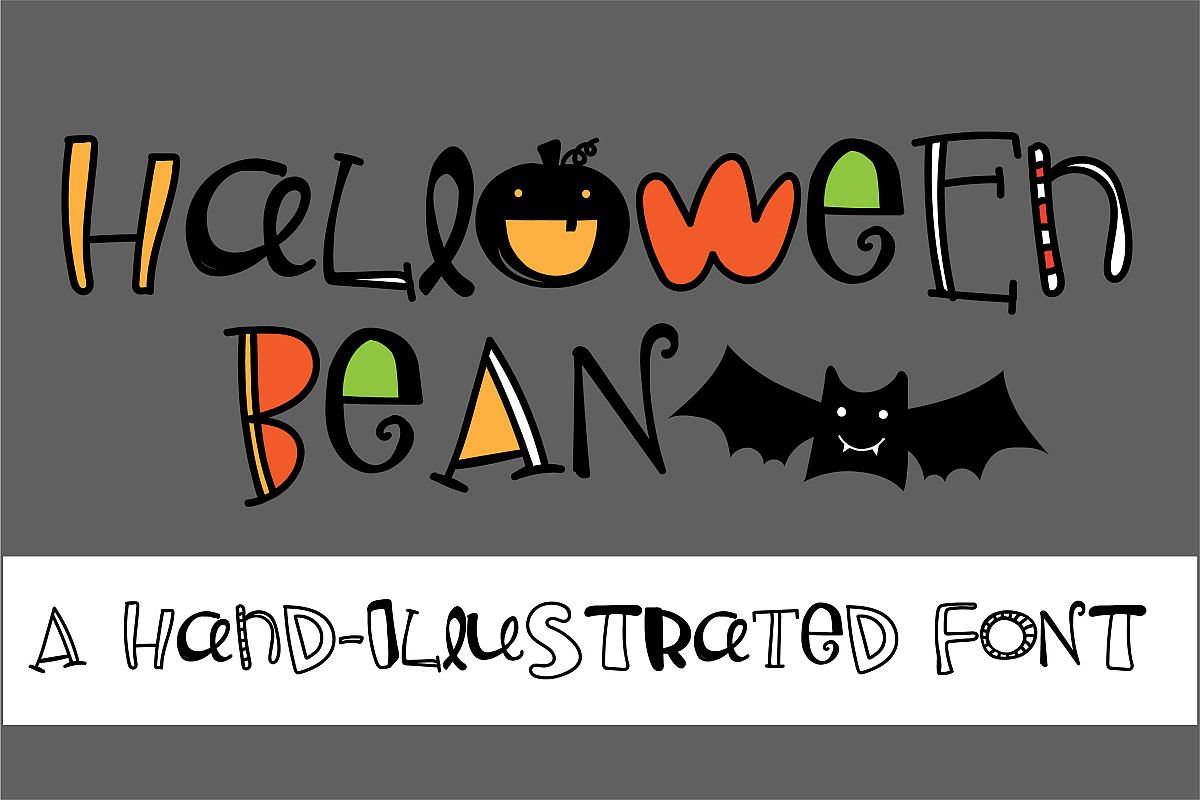
ZP Halloween Bean
This hand-illustrated Halloween themed font has an adorable jack-o-lantern for the "O" and a bat for the bullet.
Symbols and numbers
International characters